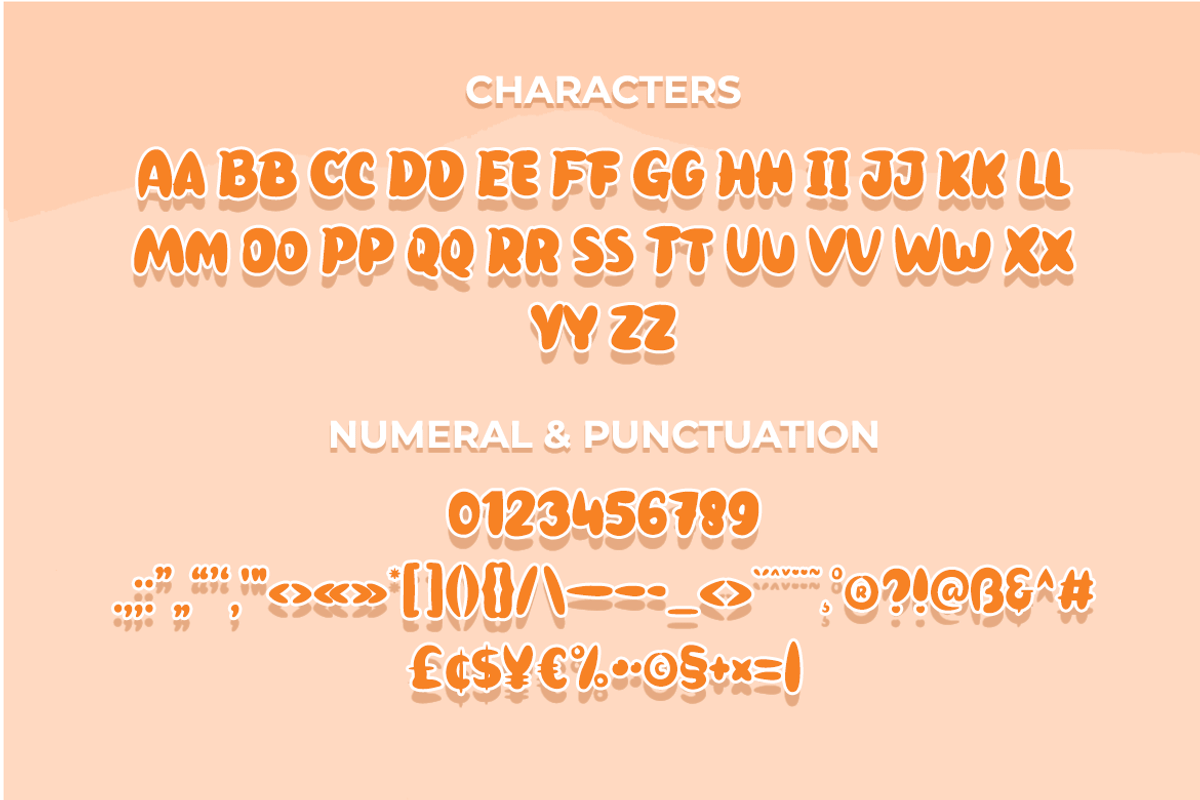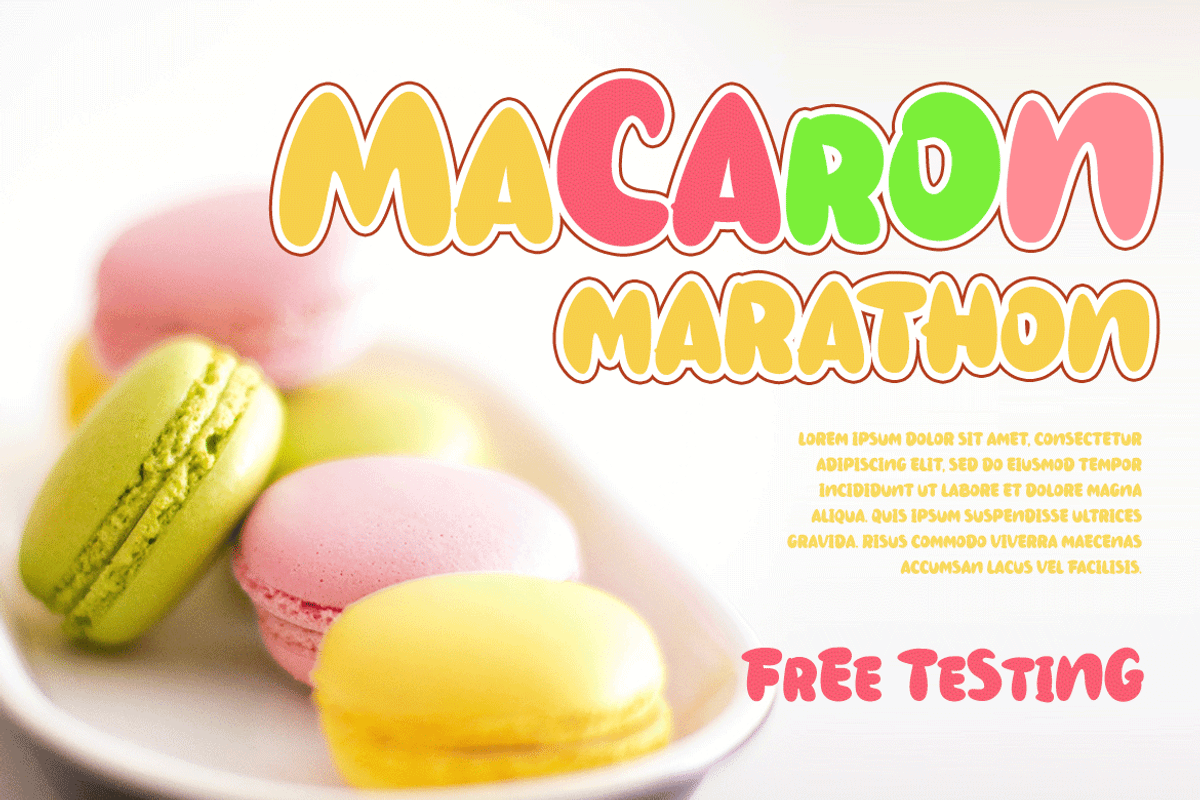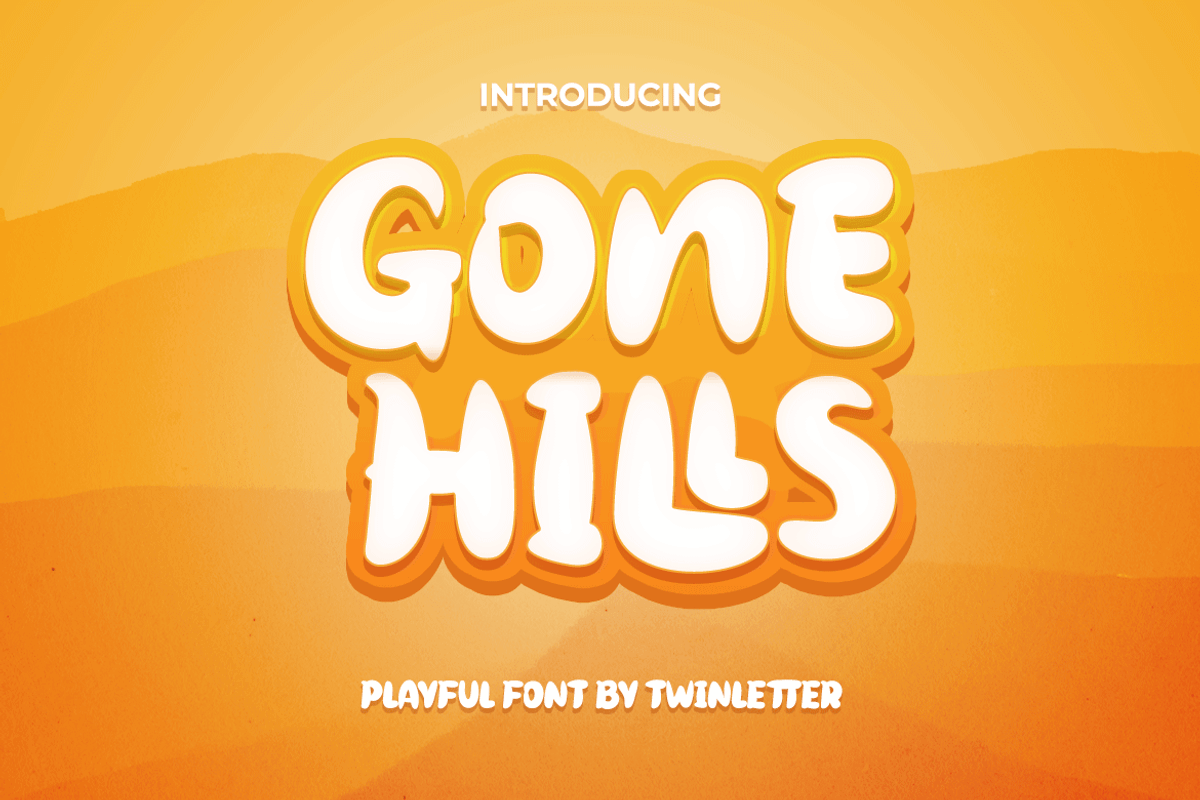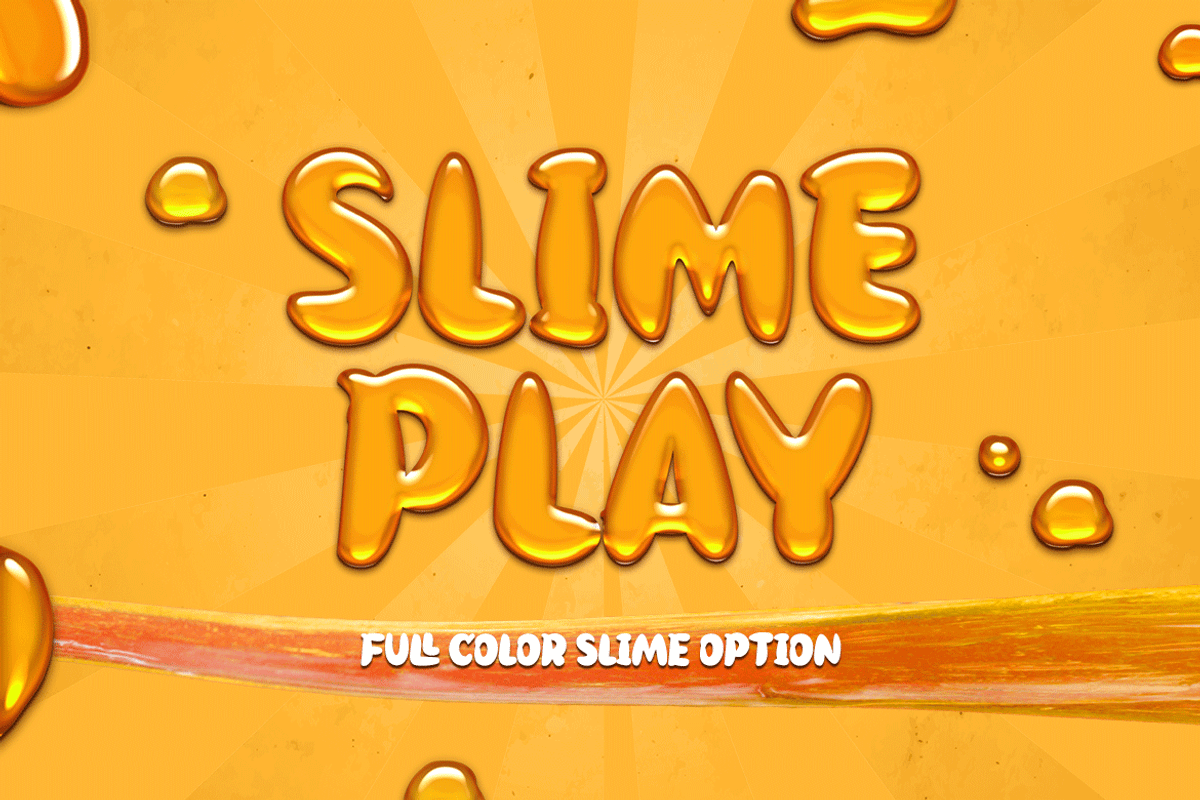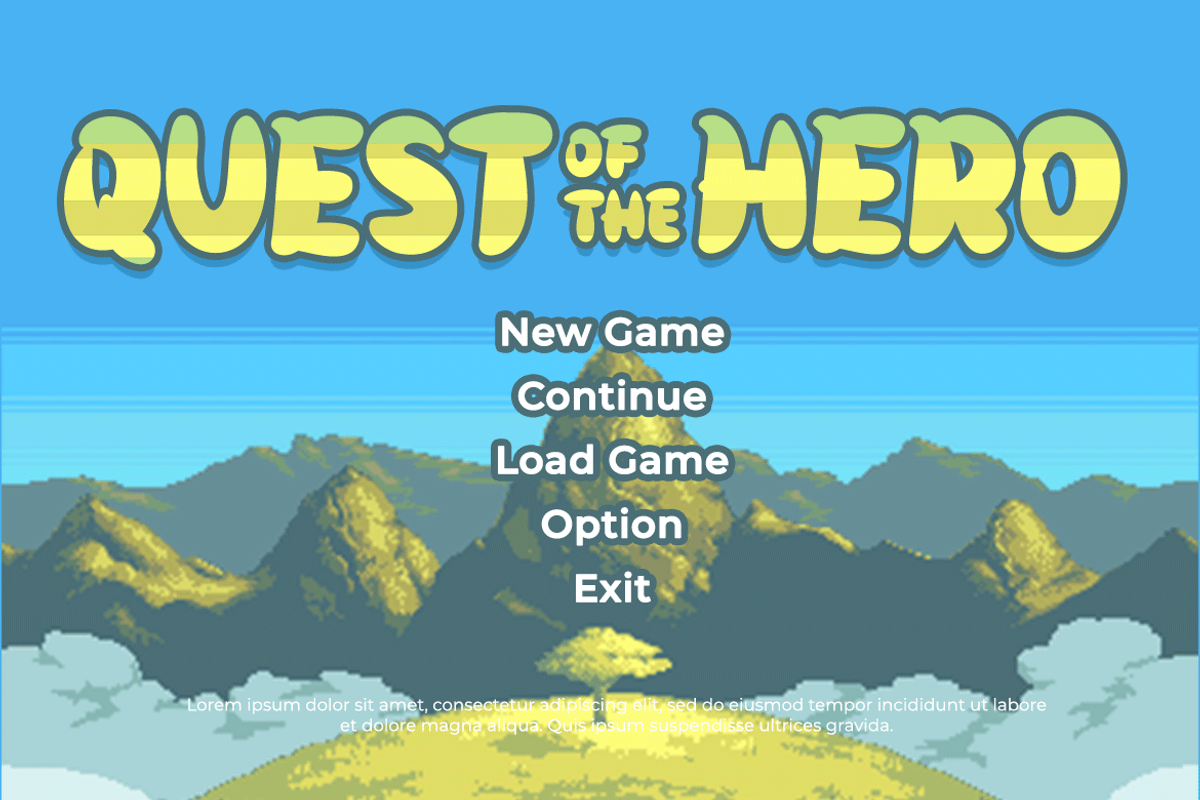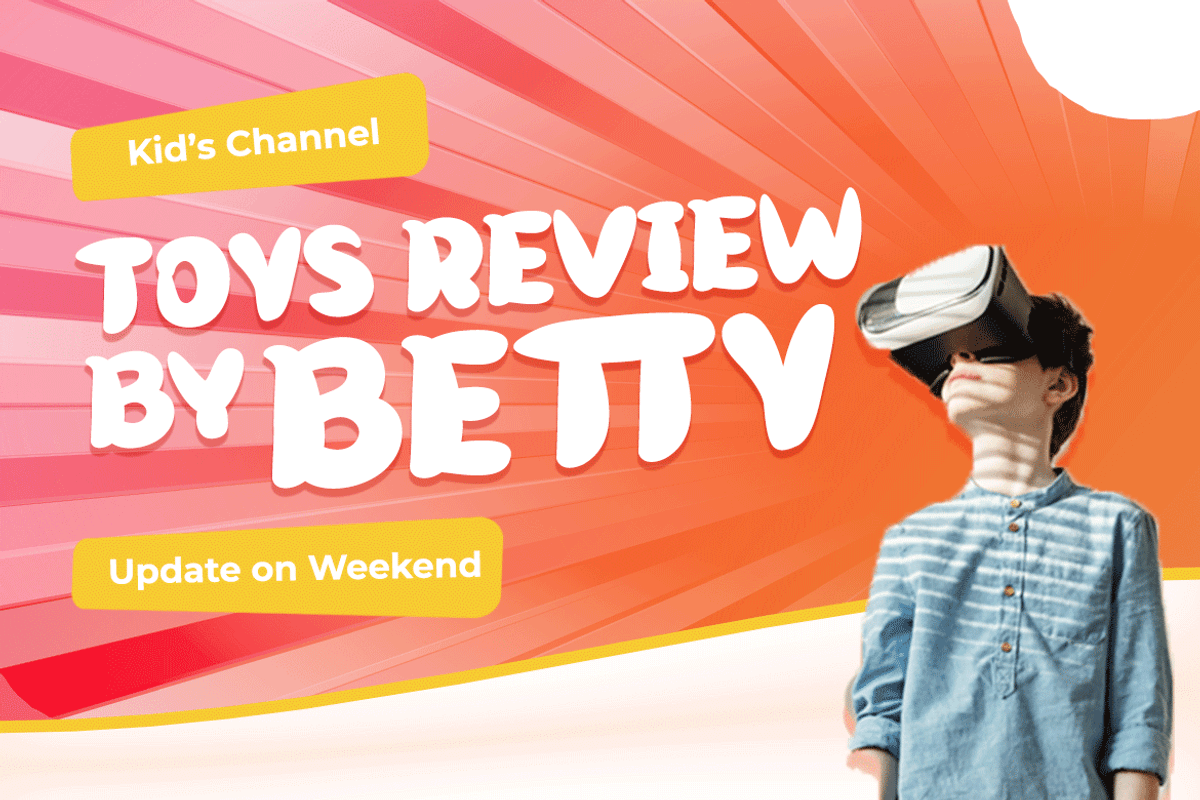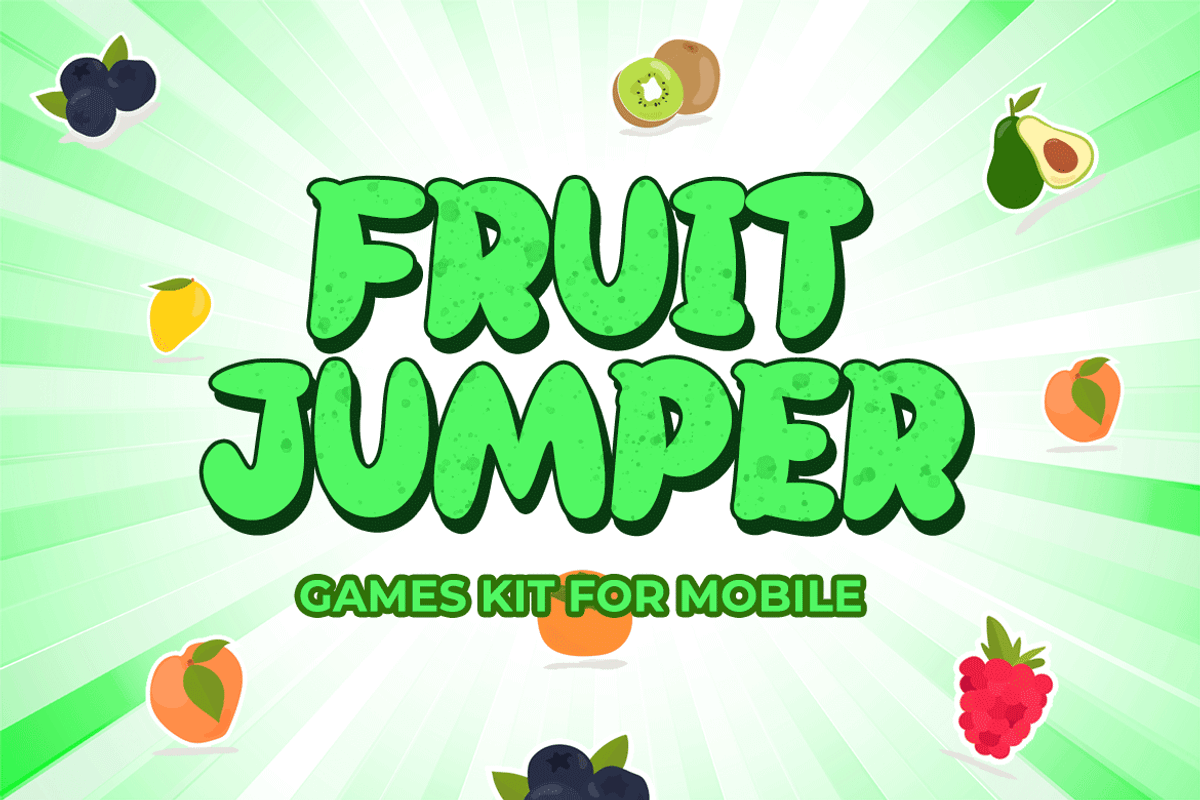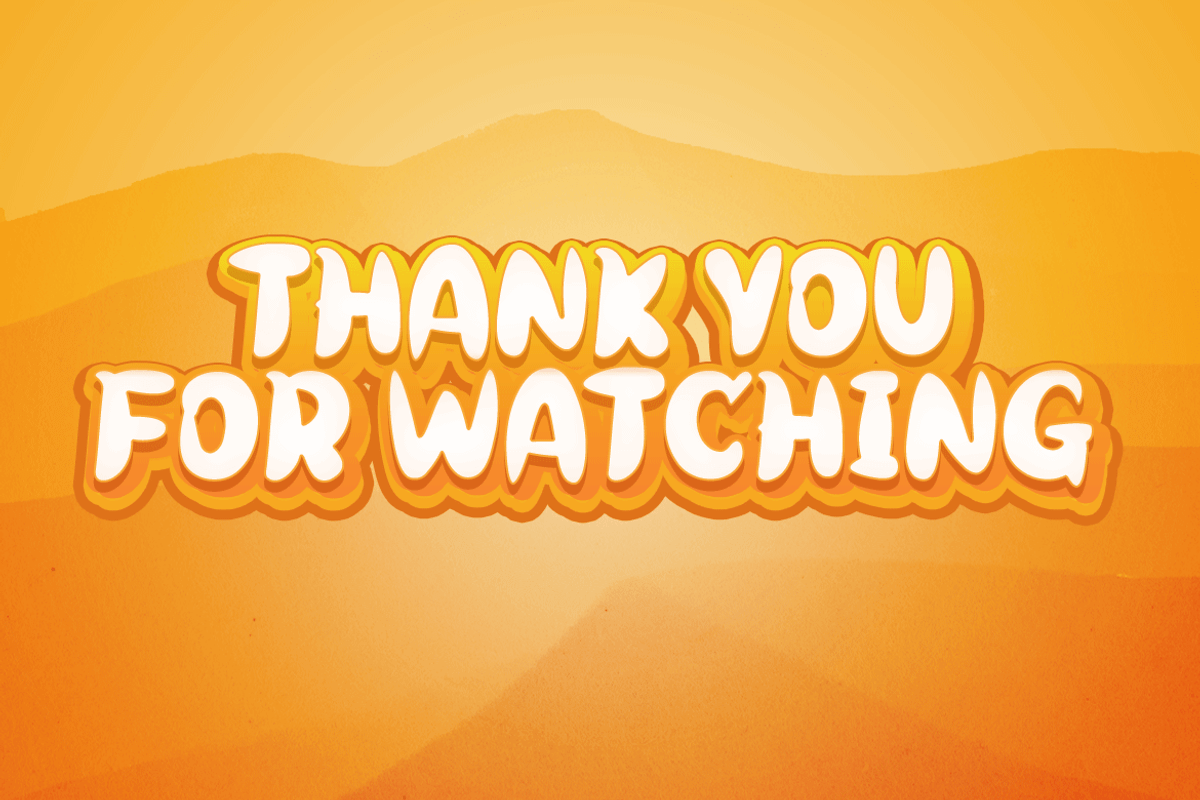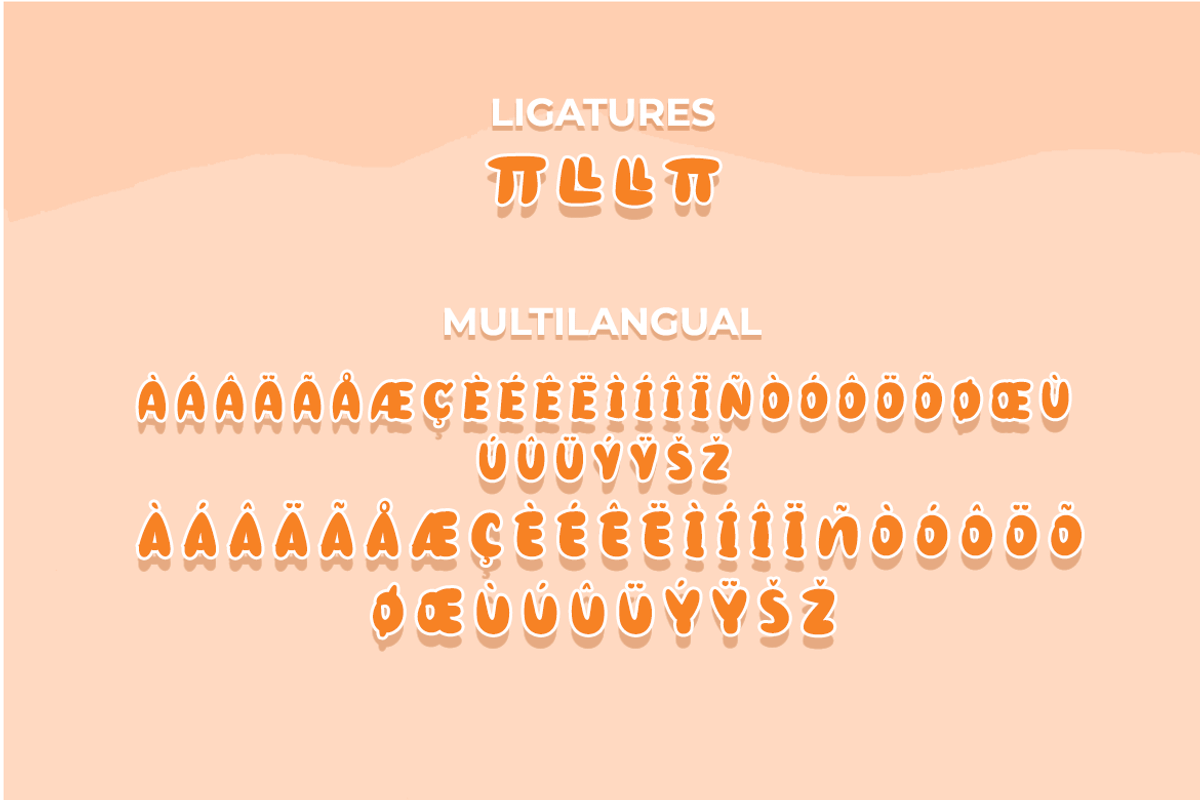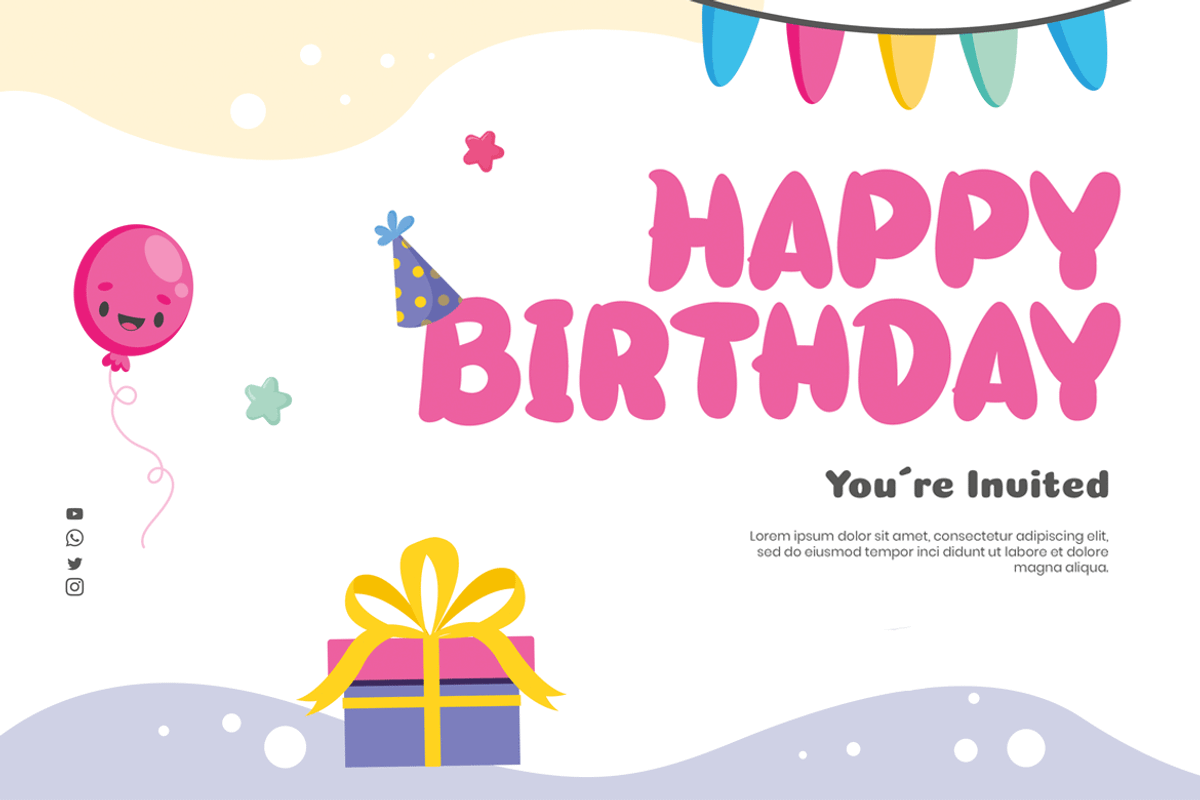
Gone Hills
Gone Hills is a whimsical display typeface that’s perfect for a variety of creative projects. Your project will appear natural and attractive in the eyes of onlookers if you use this typeface. Let’s use this typeface to increase the quality of your graphics.
This typeface is ideal for use in games, sporting events, branding, banners, posters, movie titles, book titles, quotations, logotypes, and other applications.
Naturally, your varied design projects will be excellent and extraordinary if you use this font because it comes with a complimentary font family, which can be used for titles, subtitles, and sentence text. Start utilizing our fonts for your great projects today.